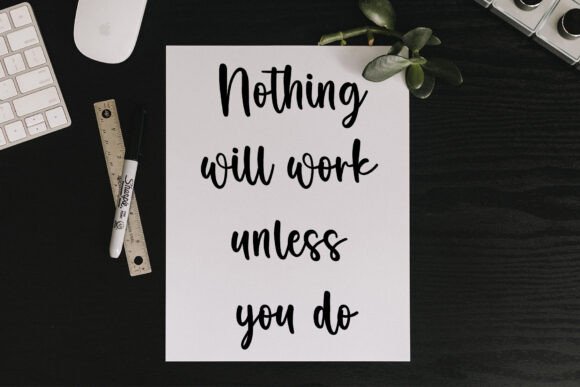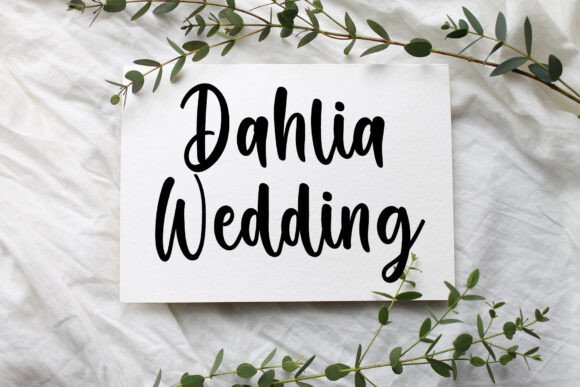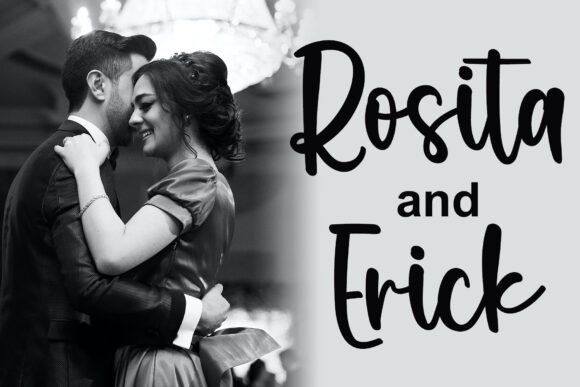
Introduction to Cupcake Valentine Font
Cupcake Valentine is an elegant and delicate handwritten typeface.
This is perfect for your various design needs, such as logos and branding, social media posts, advertisements, business cards, wedding invitation, product design, etc This font is PUA encoded which means you can access all of the glyphs and alternates with ease.
Key Features of Cupcake Valentine Font
Why Choose Cupcake Valentine Font?
Cupcake Valentine Font offers exceptional quality and versatility, making it a valuable addition to your design toolkit. Whether you’re creating for personal projects or commercial use, Cupcake Valentine Font delivers professional results.